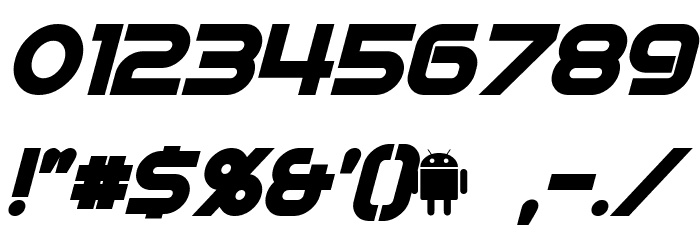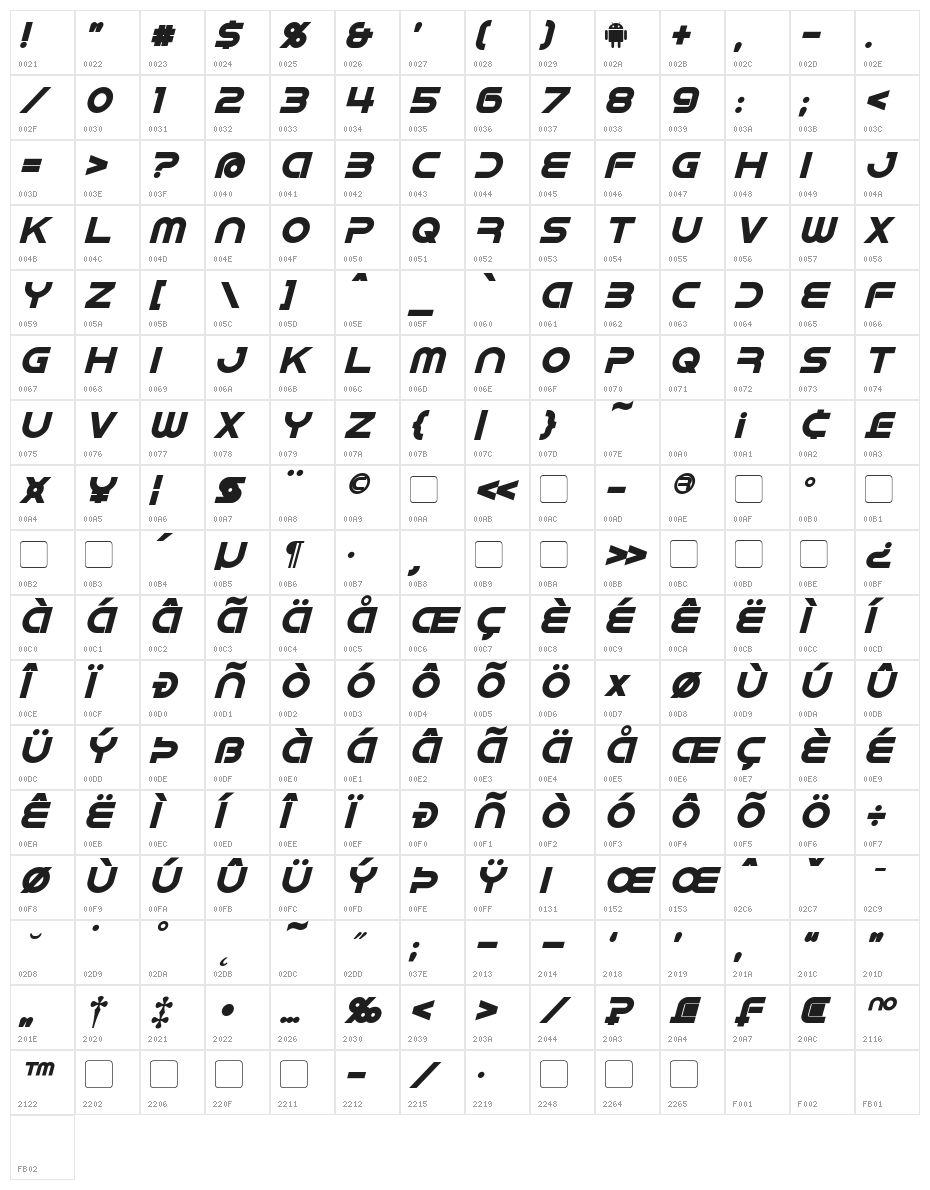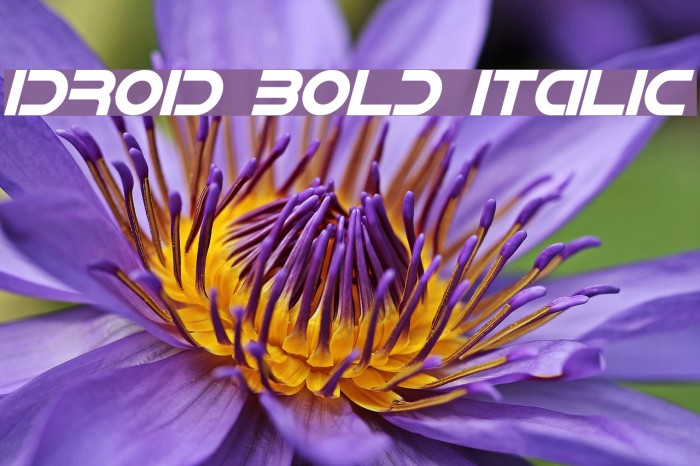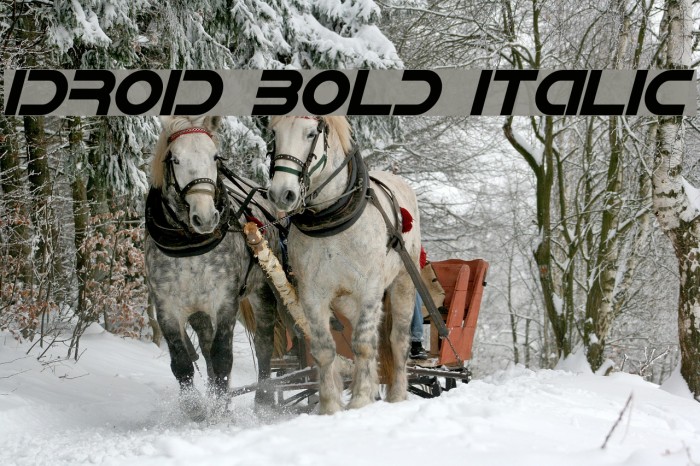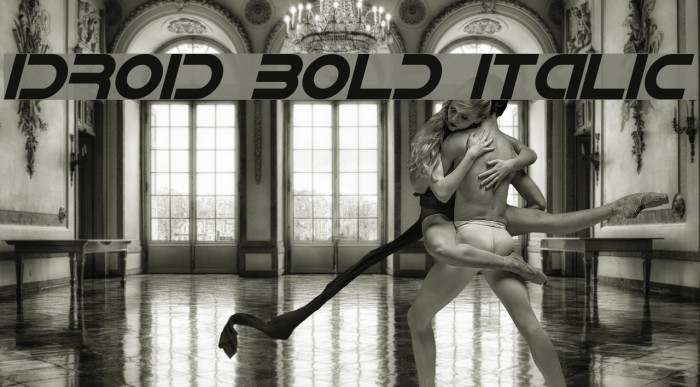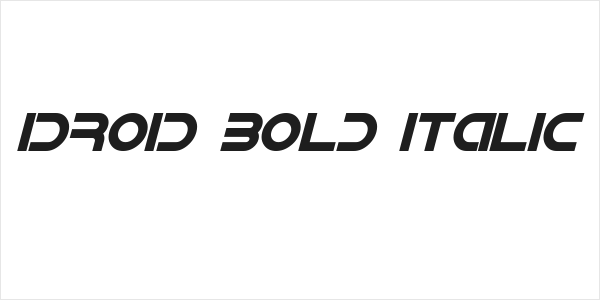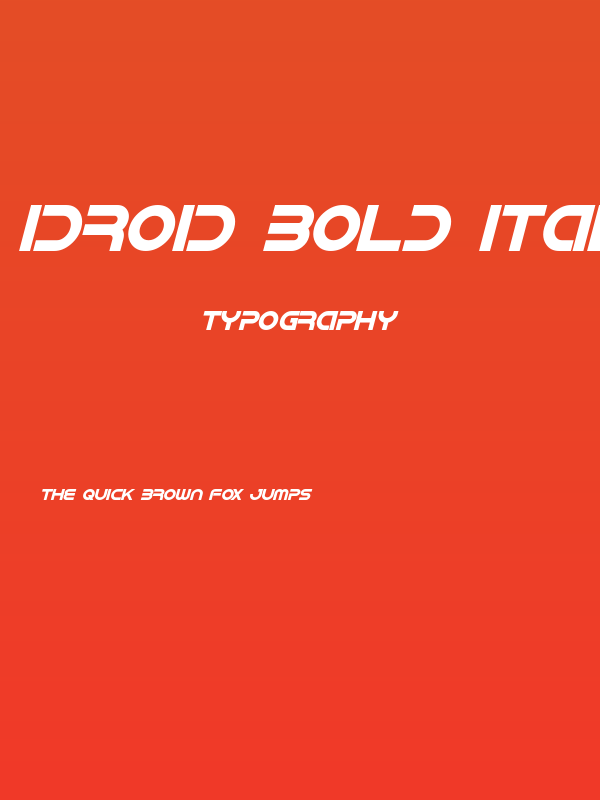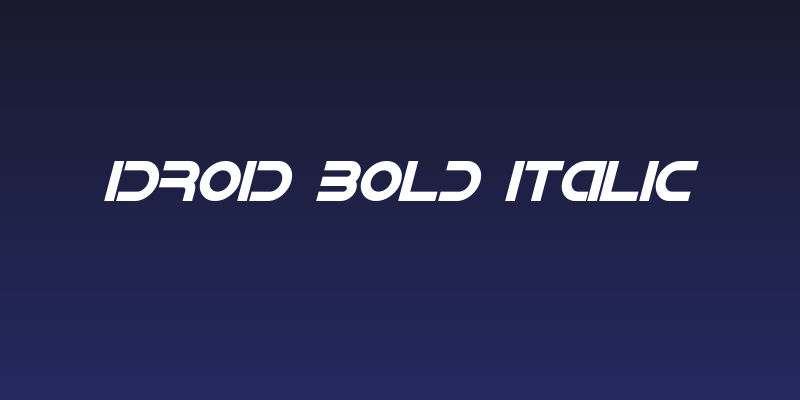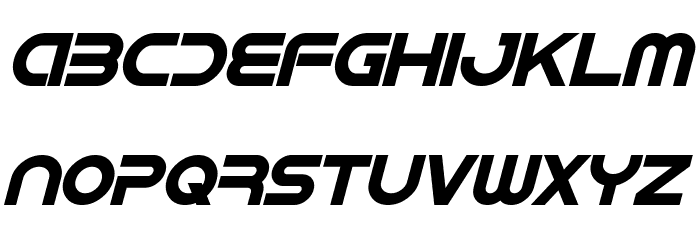
IDroid Bold Italic Font
IDroid Bold Italic Description
This font features a futuristic and dynamic design, characterized by its bold and italicized style. The letters are crafted with a distinct geometric flair, incorporating sharp angles and smooth curves that create a sense of motion and energy. The uppercase and lowercase letters maintain a consistent style, with a slight slant that enhances the italic effect. The numbers and special characters are designed to match the overall aesthetic, providing a cohesive look. The font's bold weight and unique style make it stand out, suitable for projects that require a modern and tech-savvy appearance.